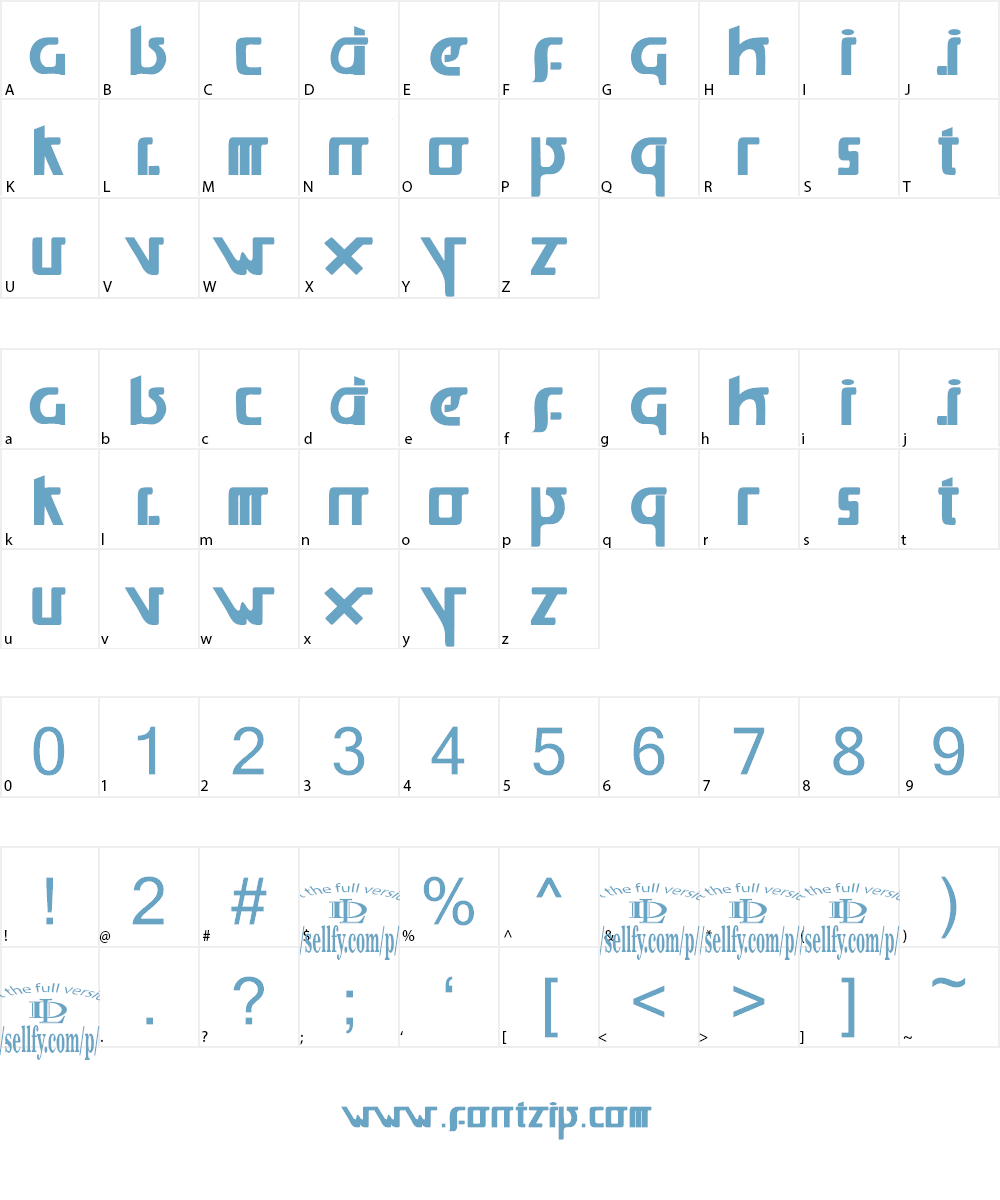
Voltus was designed for branding logo company, products, etc,
with opentype features, voltus will help you presenting your products or brand standout on the crowd.